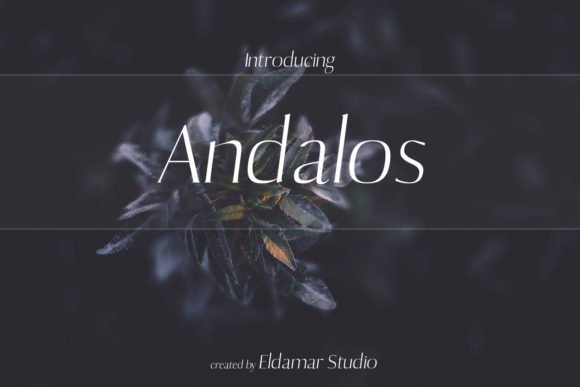
Introducing the Delicate Charm of Andalos Font
Have you ever stumbled upon a font that perfectly captures the essence of a project, making all the design decisions fall into place? For many designers, this moment is a dream come true. It’s the spark that ignites creativity and propels a project forward. Andalos Font is one such font that can evoke this feeling, with its modern, thin, and delicate serif design.
Originally designed for a wide range of crafty ideas, Andalos Font is perfect for letterheads, titles, and stationery. Its unique look will appeal to designers who want to add a touch of elegance and sophistication to their work. As a valuable addition to any designer’s toolkit, Andalos Font offers a fresh and modern aesthetic that’s sure to impress.
Andalos Font Key Features
- Font Family: Andalos Font comes in multiple font families, including Andalos Regular, Andalos Bold, Andalos Italic, and Andalos Bold Italic.
- Character Set: Andalos Font supports a wide range of languages, including Latin, Cyrillic, and Greek scripts, with over 800 characters in the Regular font family.
- Unique Characteristics: Andalos Font features a unique blend of traditional and modern design elements, with a distinctive style that is both elegant and bold.
Andalos Font Review
Overall, I’d say the Andalos Font is a solid choice for designers looking for a unique and elegant typeface. ✨ One of the things that stands out about this font is its versatility – it works well in both digital and print formats, and can be used in a variety of design contexts, from logos and branding to body text and display headings.
Here are a few things that I particularly like about the Andalos Font: ✨
- Its high level of customization, which allows designers to tailor the font to their specific needs
- Its clean and sophisticated aesthetic, which lends itself well to professional and high-end designs
- Its excellent legibility, even at smaller font sizes
However, there are a few limitations to the Andalos Font that designers should be aware of: ⚠️
- It may not be the best choice for extremely large or complex designs, as it can be prone to scaling issues
- It may not have the same level of personality or flair as some other fonts on the market
Overall, I’d give the Andalos Font 4 out of 5 stars. While it may not be the perfect choice for every design project, it’s a solid and reliable option that’s well-suited to a wide range of design contexts.
Tips for Getting the Most Out of the Andalos Font
The Andalos Font is a versatile font that can be used in a variety of applications. Here are some tips for getting the most out of it:
- Use the Andalos Font for titles and headings to add a touch of elegance and sophistication.
- Experiment with different font styles and sizes to create a unique and visually appealing design.
- Combine the Andalos Font with other fonts to create a visually